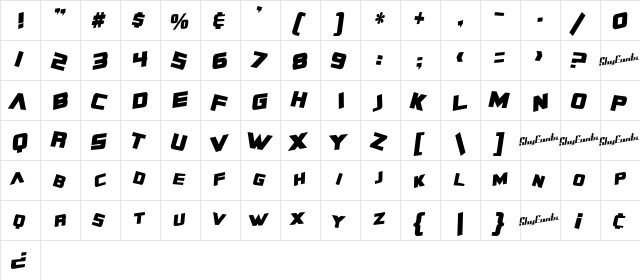
SF Zero Gravity Condensed Bold Italic Font Preview
Design Context for SF Zero Gravity Condensed Typeface
SF Zero Gravity Condensed is a composed and adaptable typeface that performs quietly and consistently across a wide range of design contexts. The slanted form adds forward momentum and visual energy. The heavy weight commands attention and anchors typographic hierarchies. Its narrow stance lets it pack a punch even in space-constrained designs.
Pro Tip: Try SF Zero Gravity Condensed for annotation and caption copy alongside an upright companion — the contrast in angle creates a dynamic but ordered typographic system.